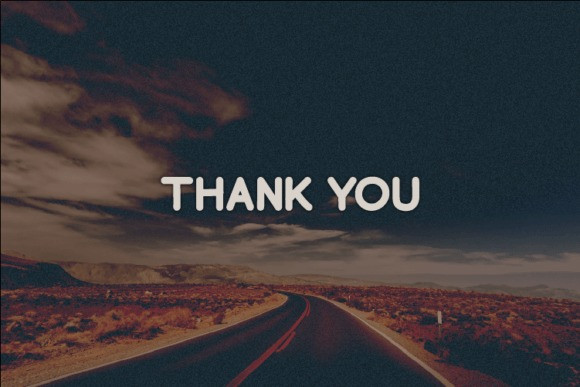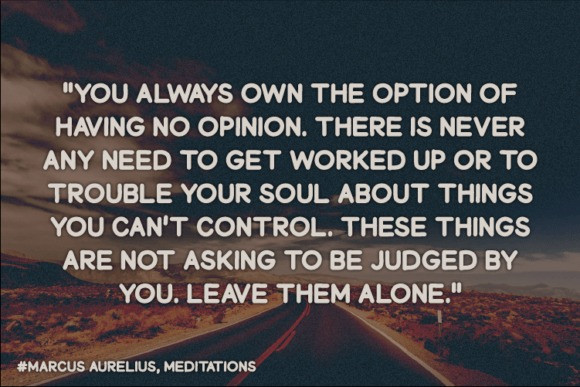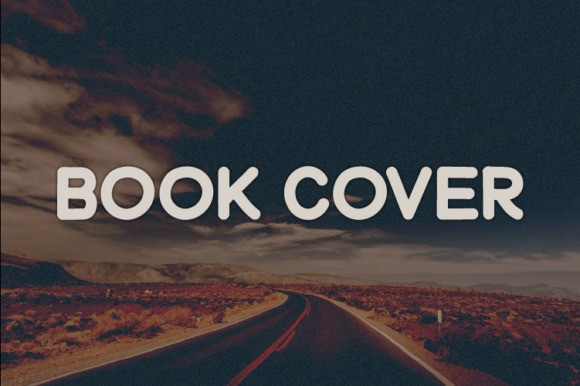
Book Cover Font
Book Cover Display Font is a quirky and playful all-caps handwritten font. Whether you’re using it for crafts, digital design, presentations, or making greeting cards, this font has the potential to become your favorite go-to font, no matter the occasion.